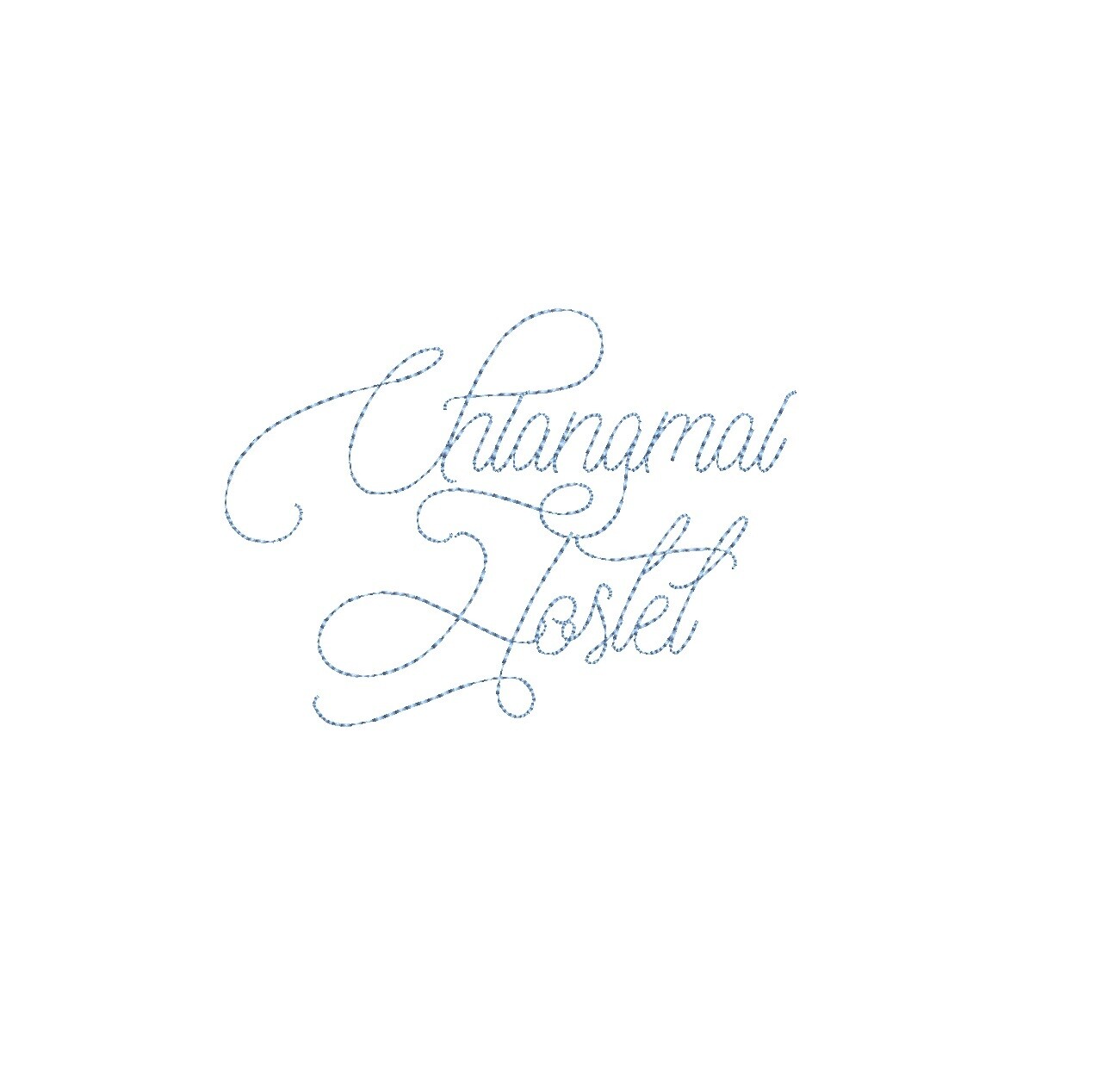
Introducing the captivating Chiangmai Hostel Bean Stitch ESA font - your go-to digitizing solution compatible with Wilcom Studio e4.5.6 and Hatch 3 versions and up. Designed with creativity and attention to detail, this font elevates your embroidery designs to new heights of charm. Its unique bean stitch style adds a touch of personality to any project, from apparel to home decor and more. With seamless curves and impeccable lines, the Chiangmai Hostel ESA font guarantees flawless embroidery results. Impress clients and express your artistic vision effortlessly with this user-friendly font, seamlessly integrating with your preferred software. Don't miss the chance to create stunning embroidery pieces. Get it now!